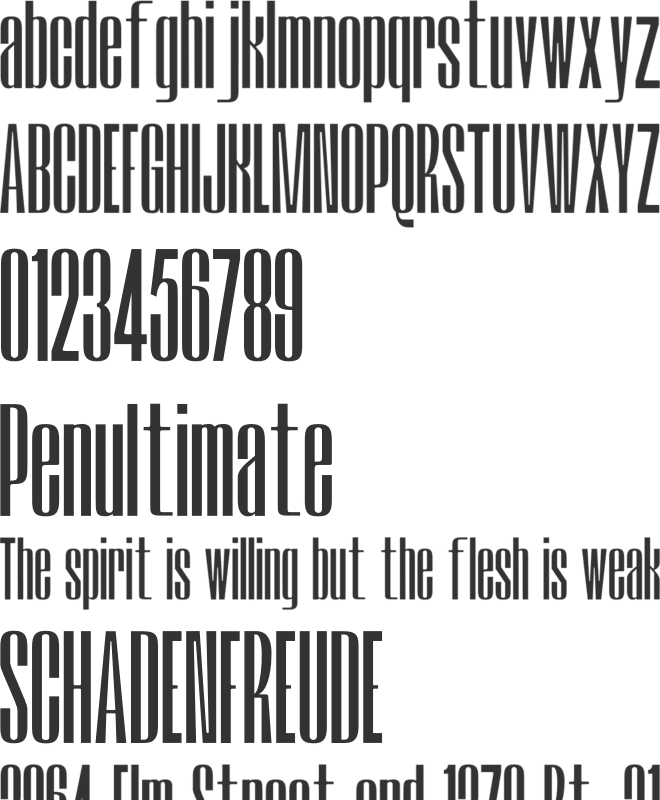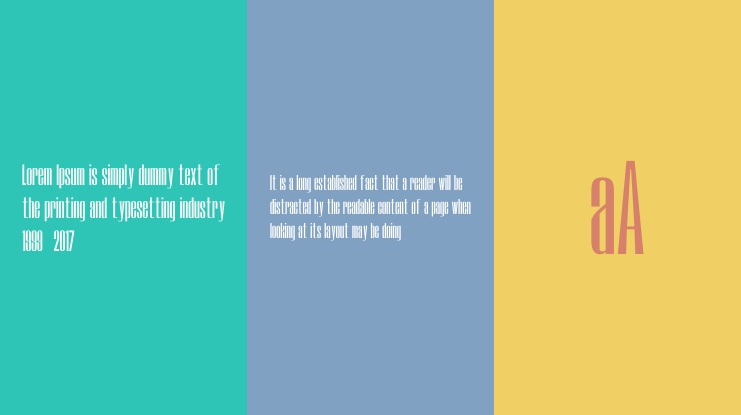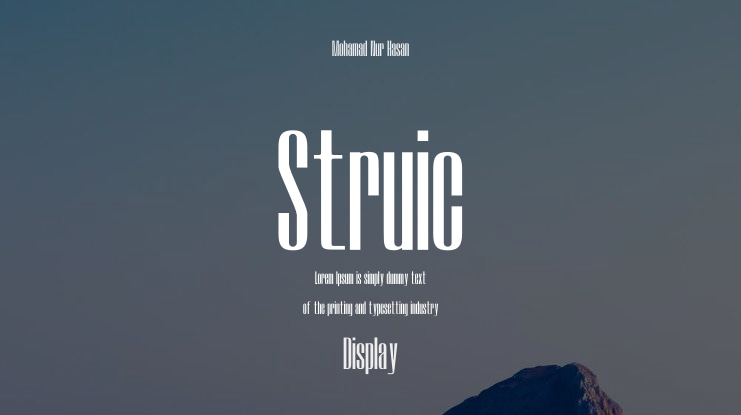
Mohamad Nur Hasan
Looking for a high-impact, modern font that demands attention? Introducing STRUIC – a sleek, condensed display typeface designed for bold branding, striking headlines, and stylish editorial layouts. Blending modern minimalism with a refined touch, STRUIC is the perfect choice for high-end branding, premium design, and contemporary aesthetics.
Why STRUIC is the Perfect Typeface for Your Project:
✔ Three Versatile Weights – Light, Regular, and Bold to fit any design need.
✔ Condensed & Space-Saving – Maximize impact without sacrificing style.
✔ Modern Minimalism with a Refined Touch – Ideal for tech, fashion, and high-end branding.
✔ High Readability – Sharp, clean letterforms optimized for print and digital use.
✔ Multi-Purpose Usage – Perfect for logos, posters, magazine covers, social media graphics, packaging, and more.
Struic was created by ReyreyBlueStd